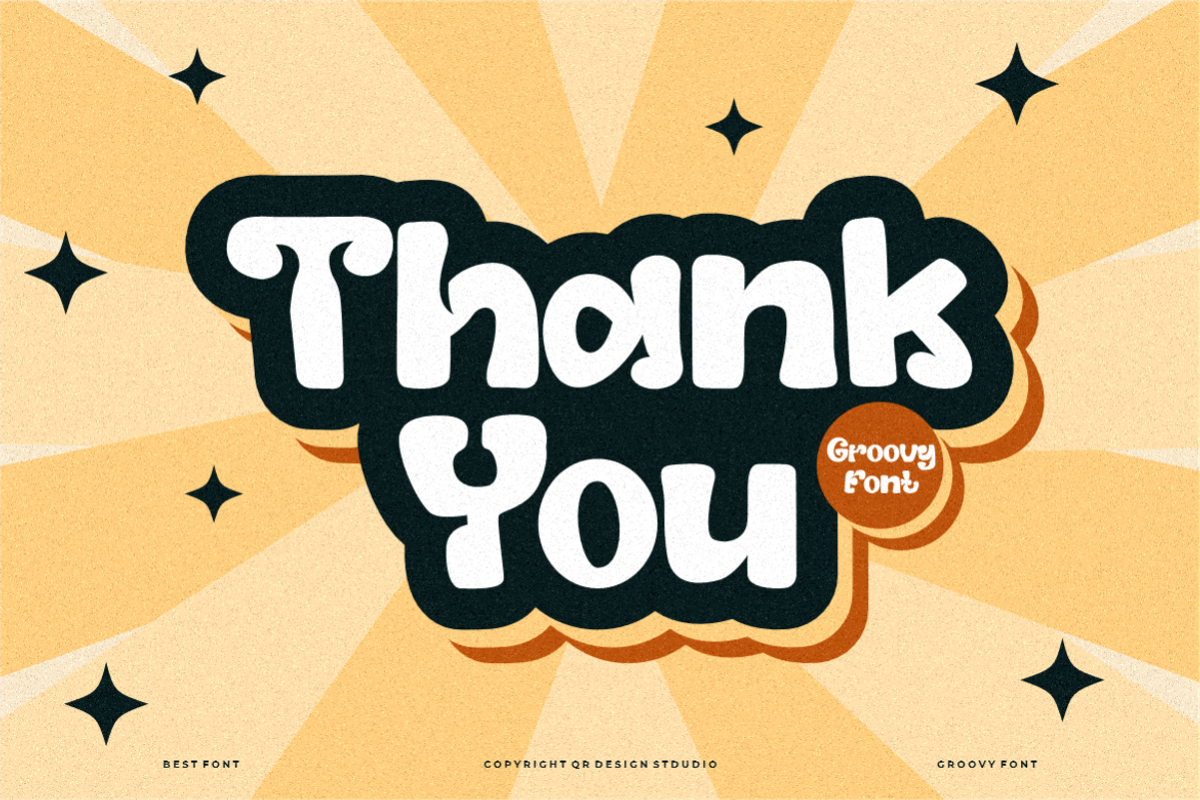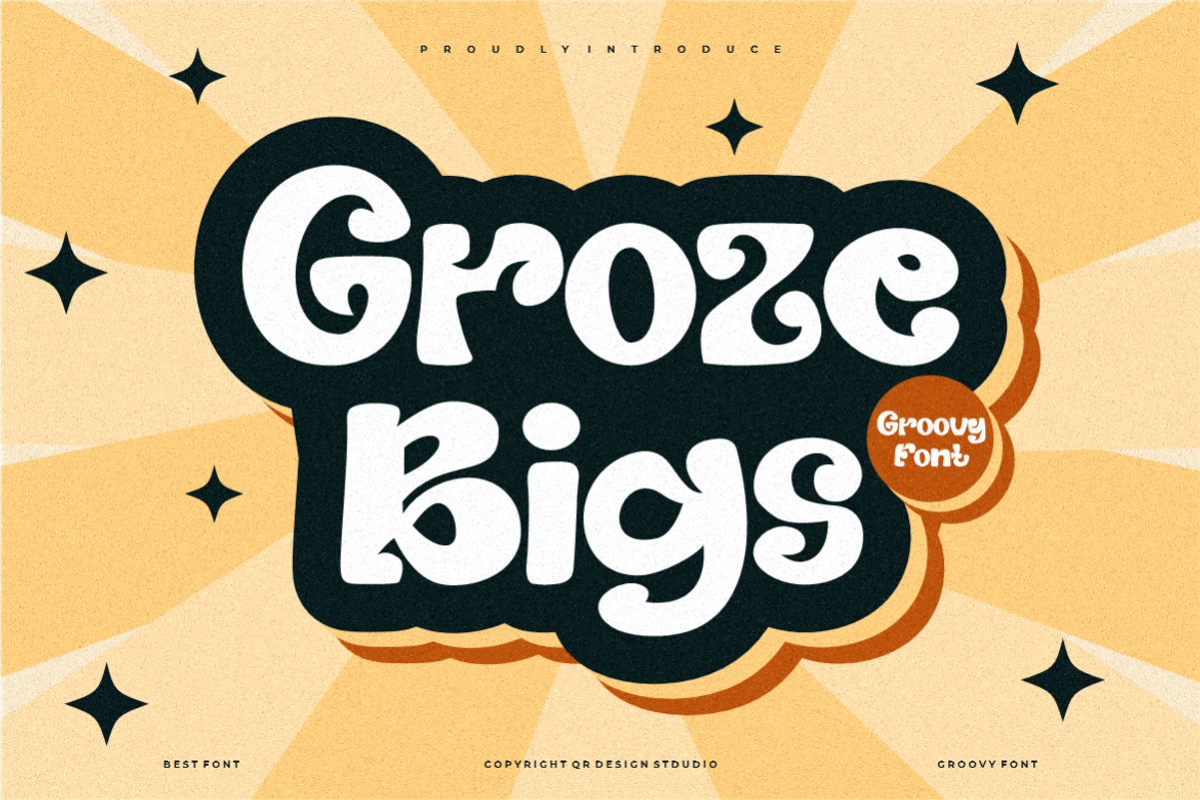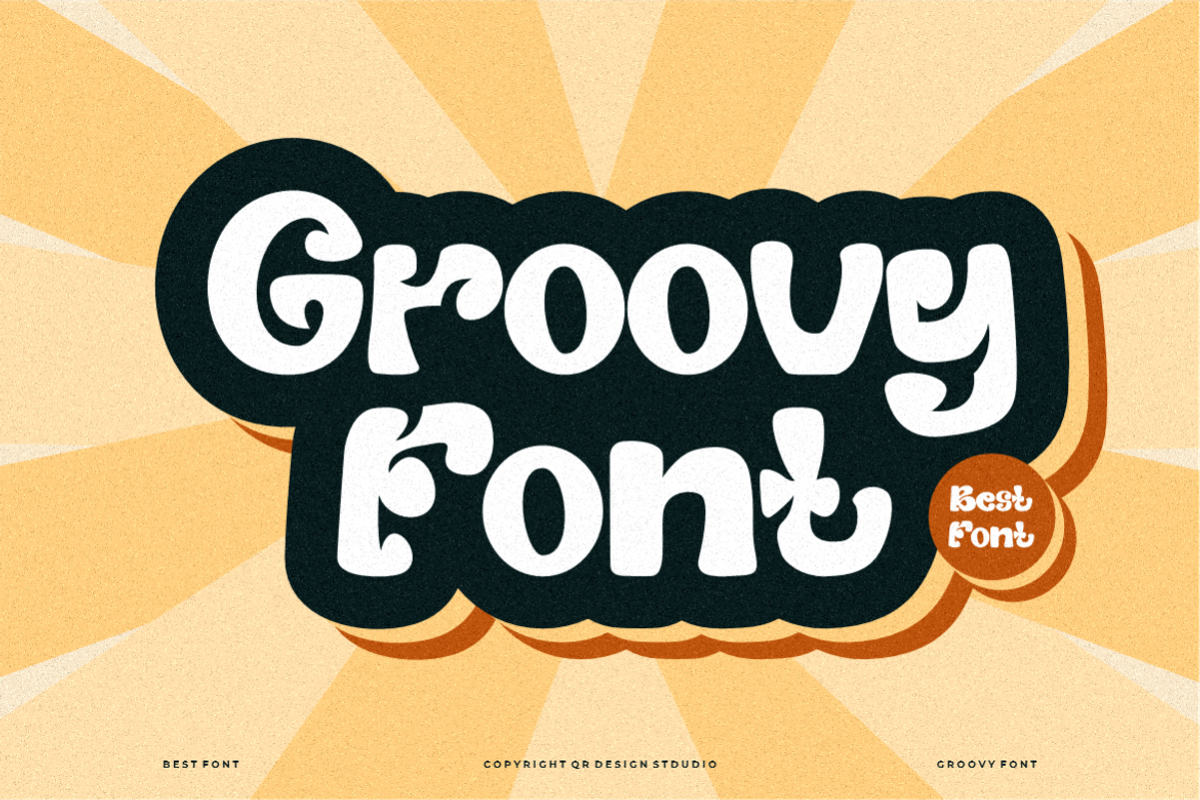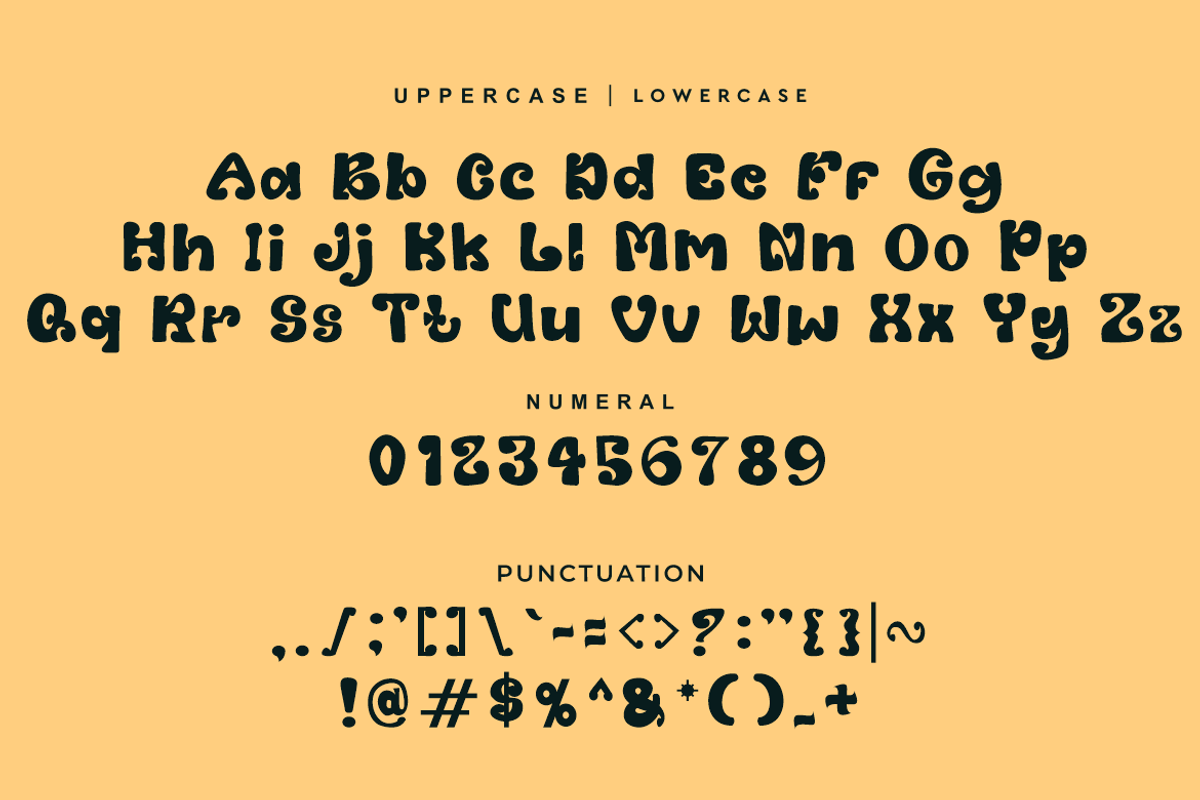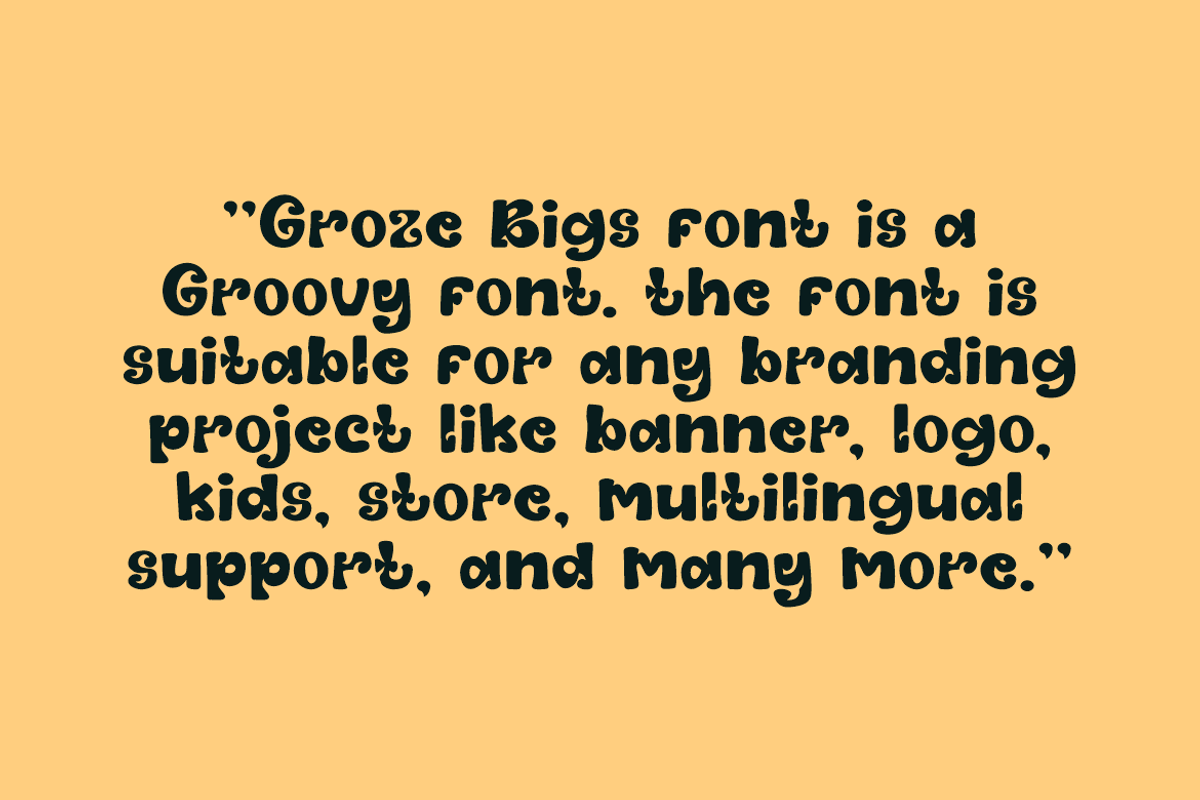
Groze Bigs - Groovy Font
Groze Bigs Font is a groovy and authentic display font. The font is suitable for any branding project like poster, logo, sport, and many more. Outstanding in a wide range of contexts.